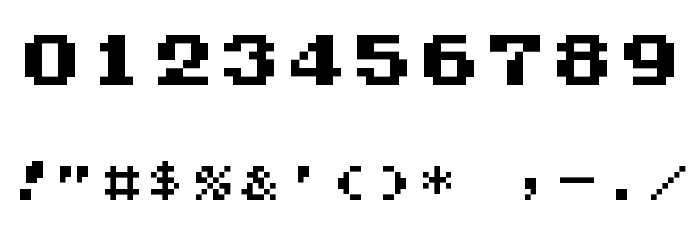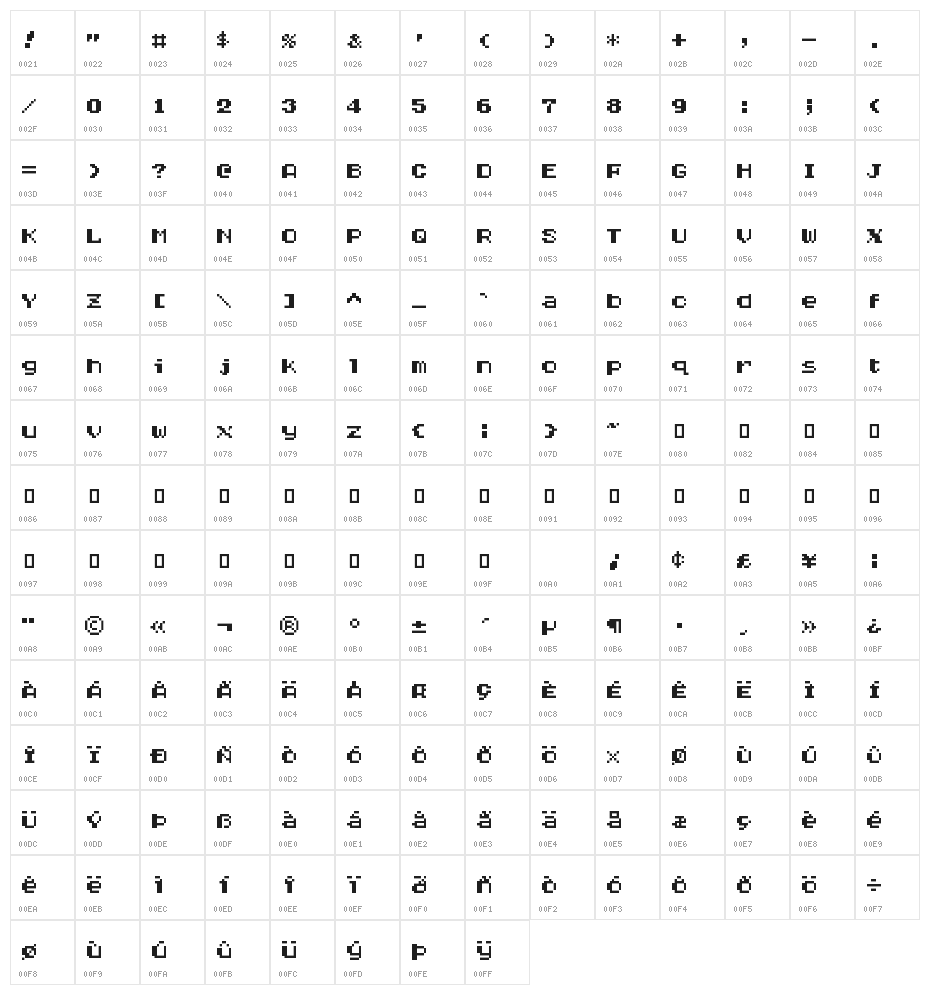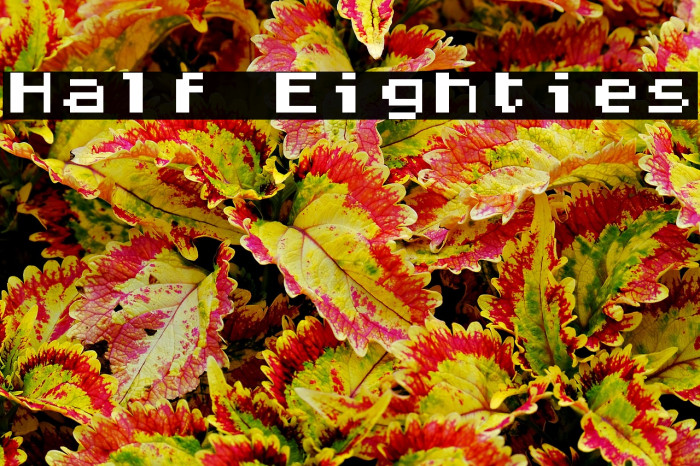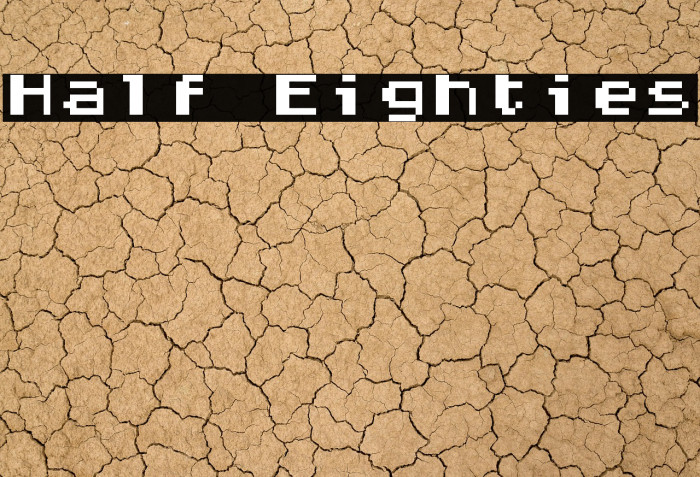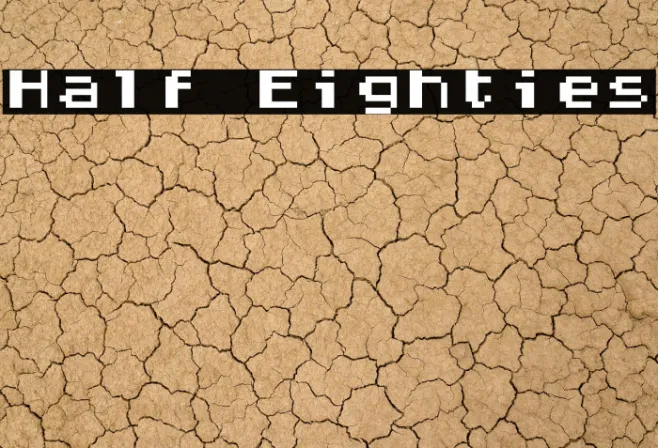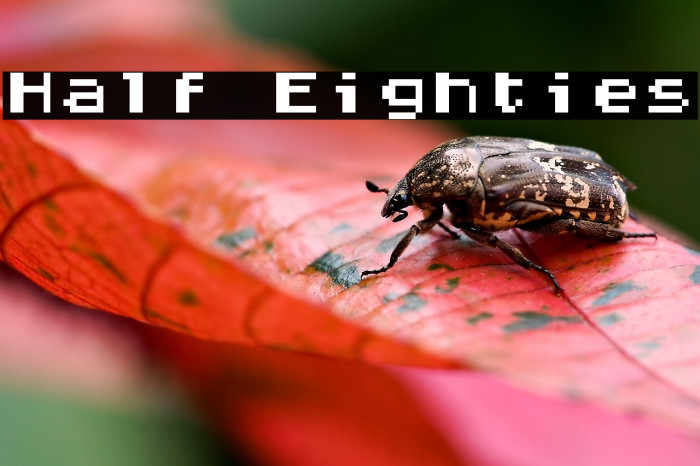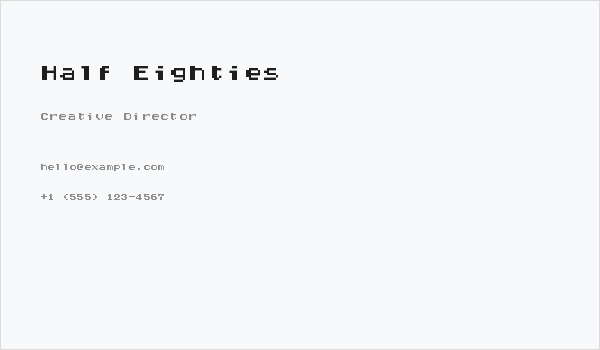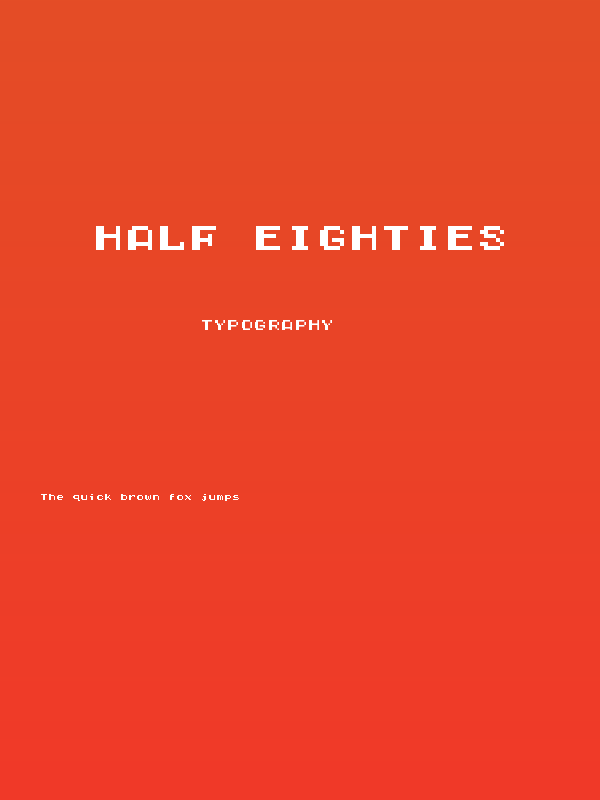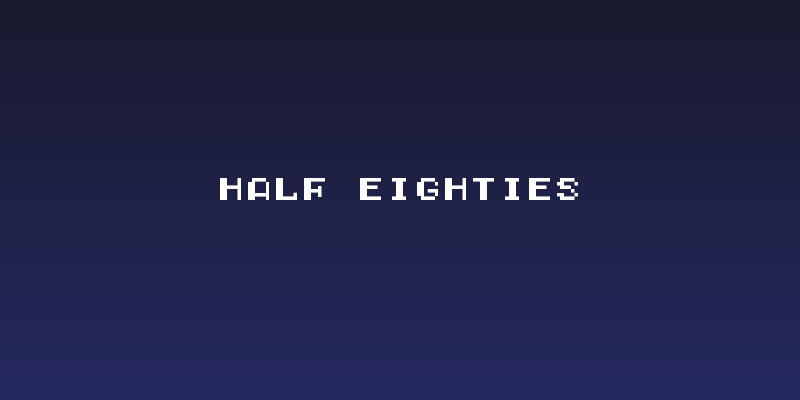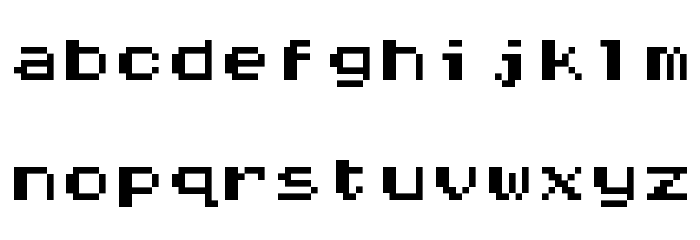
Half Eighties Font
Half Eighties Description
This font features a bold, pixelated design reminiscent of early digital displays and retro video games. Each character is constructed with a blocky, grid-like appearance, giving it a distinctly vintage and tech-inspired aesthetic. The uppercase and lowercase letters maintain a consistent height, contributing to a uniform look across text. Numbers and special characters follow the same pixelated style, ensuring a cohesive visual identity. The font's geometric structure and sharp edges evoke a sense of nostalgia, making it ideal for projects that aim to capture the essence of the 1980s digital era.
Overall StyleVintage
Use CaseHeadlines, Logos, Digital Art
Proposed ProjectsIdeal for retro-themed designs, video game graphics, digital art, and tech-related branding.